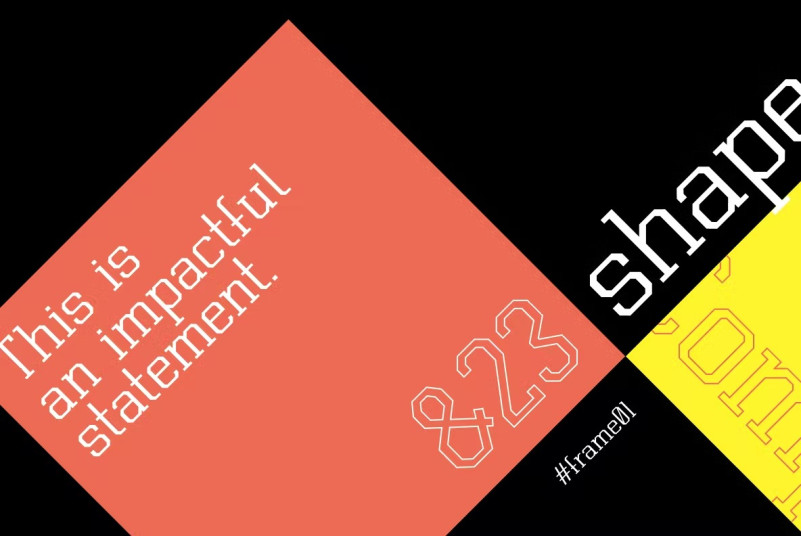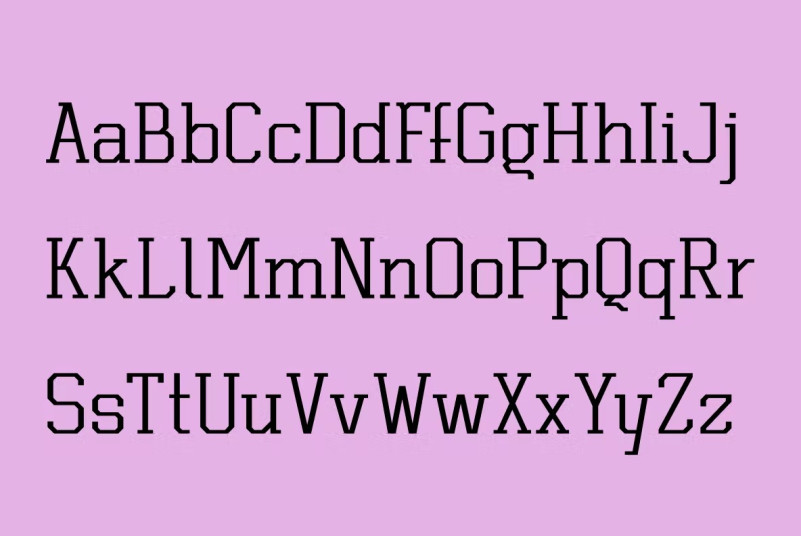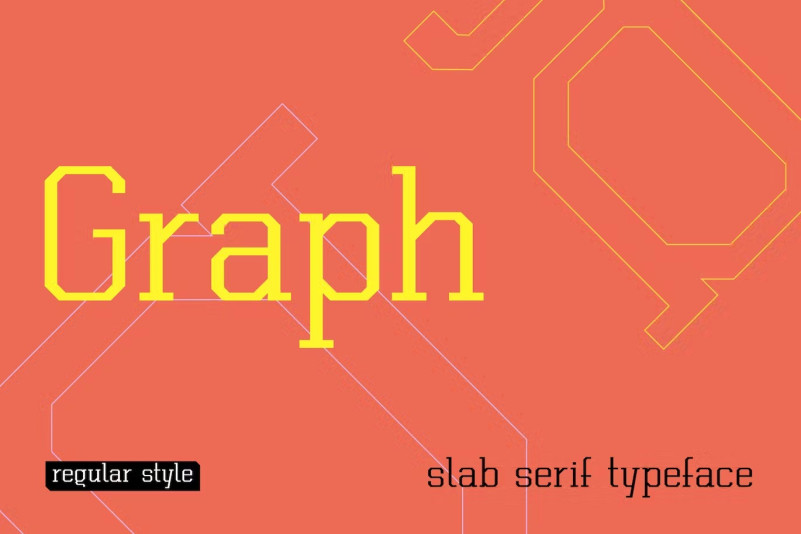
Graph Font
Graph Slab Serif font. The unique body of each letter without roundness makes it a pretty technical font. Similar letters often are used in coding or any tech frameworks. Currently, the font exists only in regular style. Strict and sharp, this font is designed for specific projects.